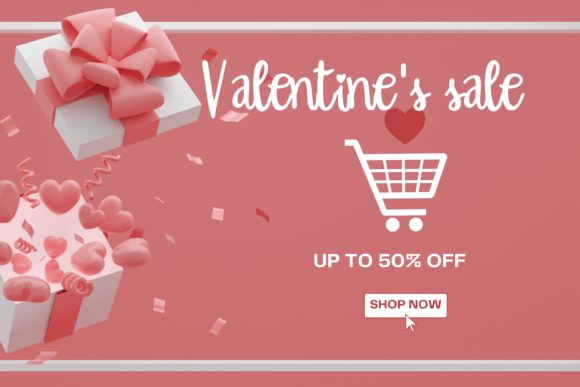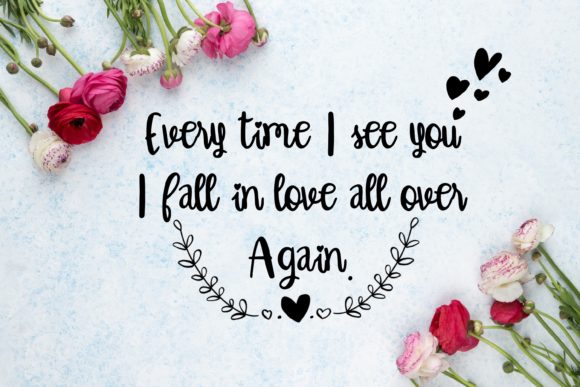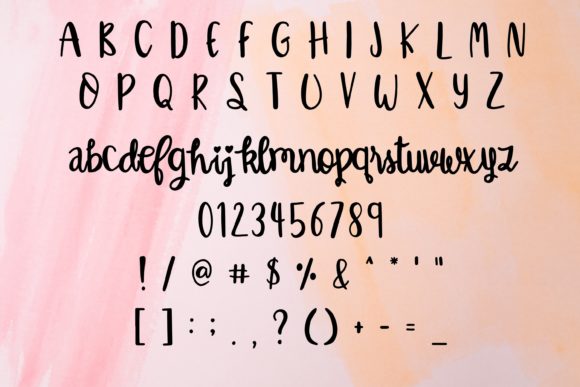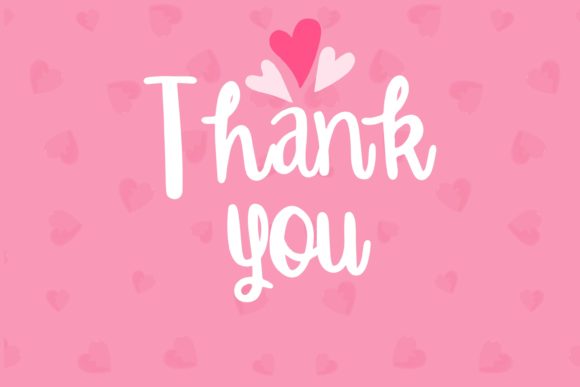
Happy Valentines Font
About Happy Valentines Font
Happy Valentines is a sweet, whimsical, and free-flowing script font. Featuring characters that dance along the baseline, it will add a spark of luxury and beauty to any design project that you wish to create!